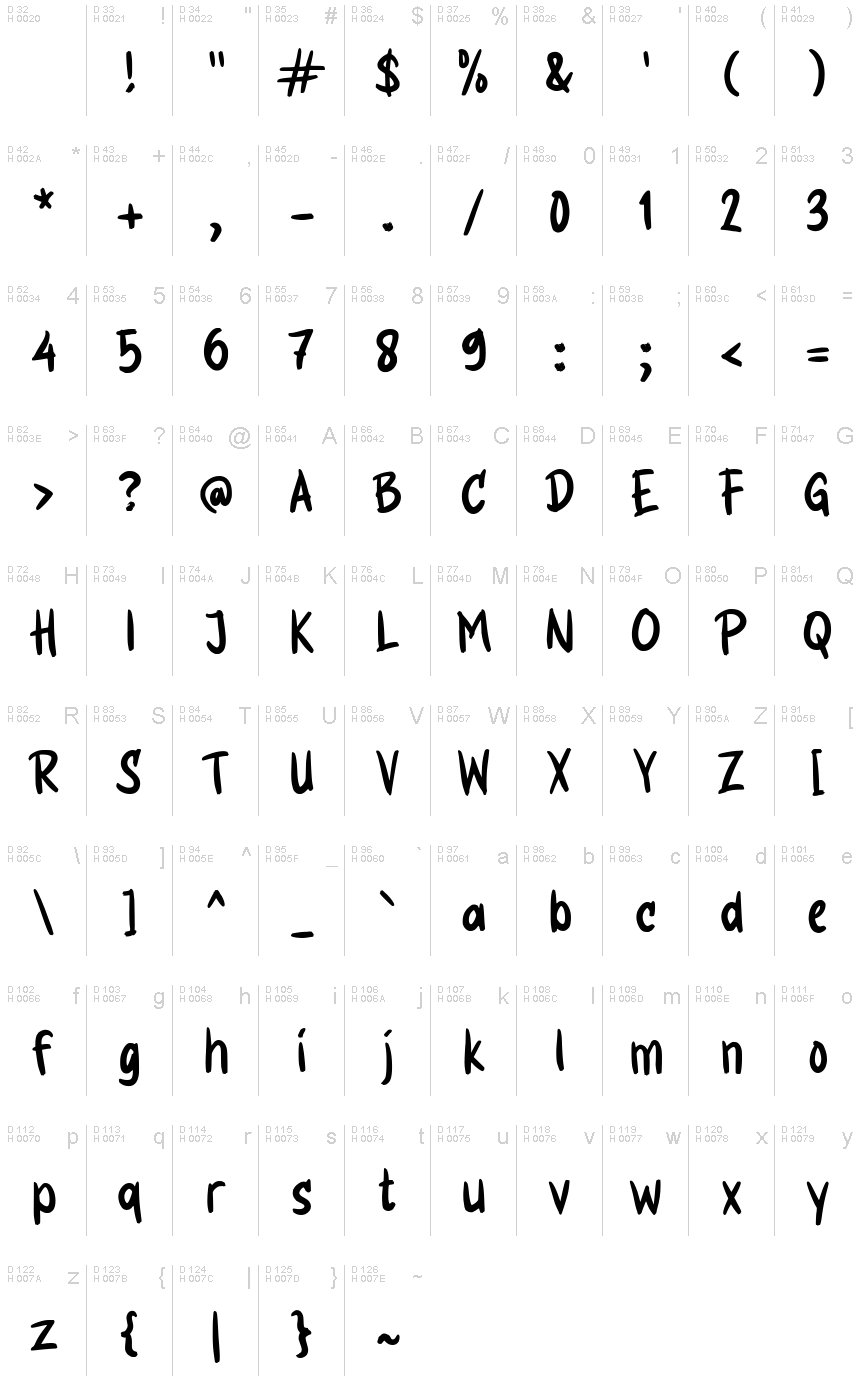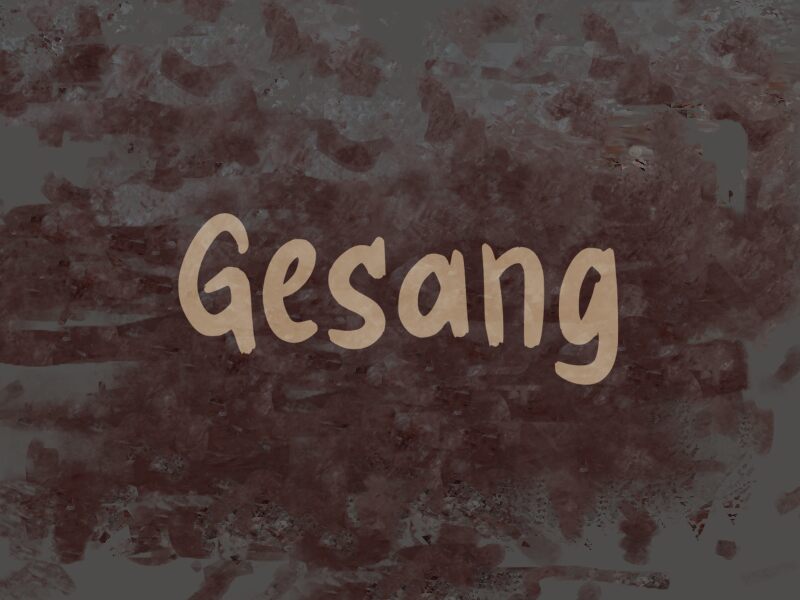
Gesang
Gesang, designed by wep, is a captivating font that exudes elegance with its smooth brush strokes. The fluidity of the letters creates a dynamic yet approachable aesthetic, making it perfect for various creative applications. With its artistic flair and expressive curves, Gesang embodies a sense of modern craftsmanship that stands out in any context.
This font’s striking character makes it ideal for branding projects, promotional materials, and artistic endeavors where personality is key. Its inherent warmth invites engagement, making it suitable for everything from invitations to social media graphics. Whether used in headlines or body text, Gesang effortlessly elevates the overall visual appeal while maintaining clarity and impact. This unique typeface transforms ordinary designs into something memorable and engaging.